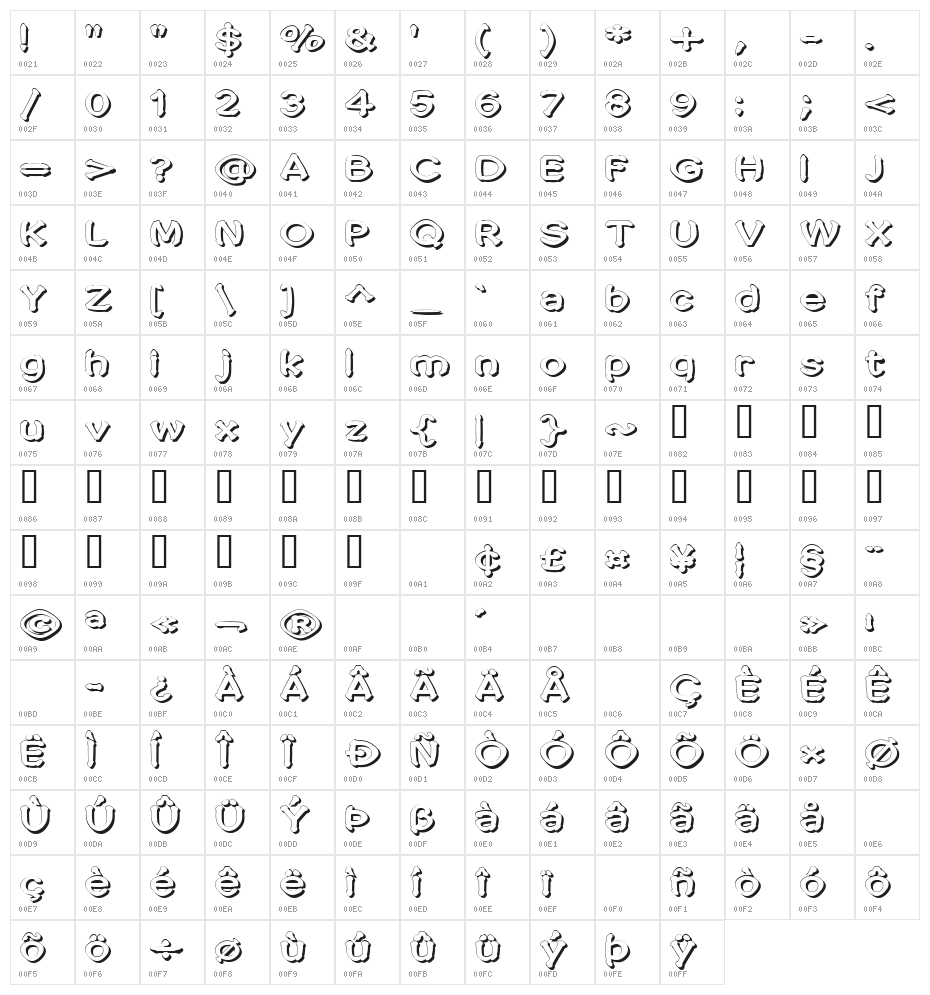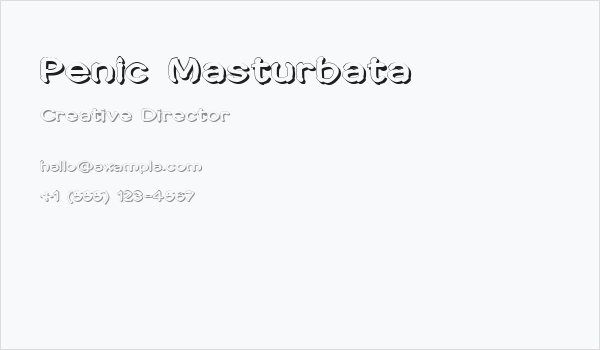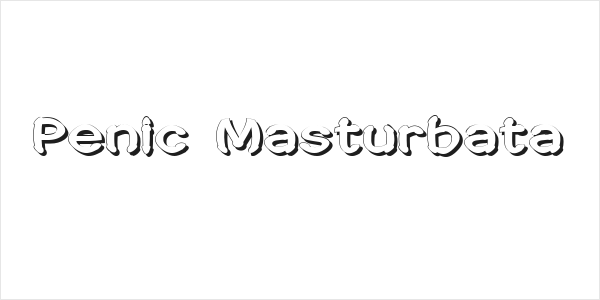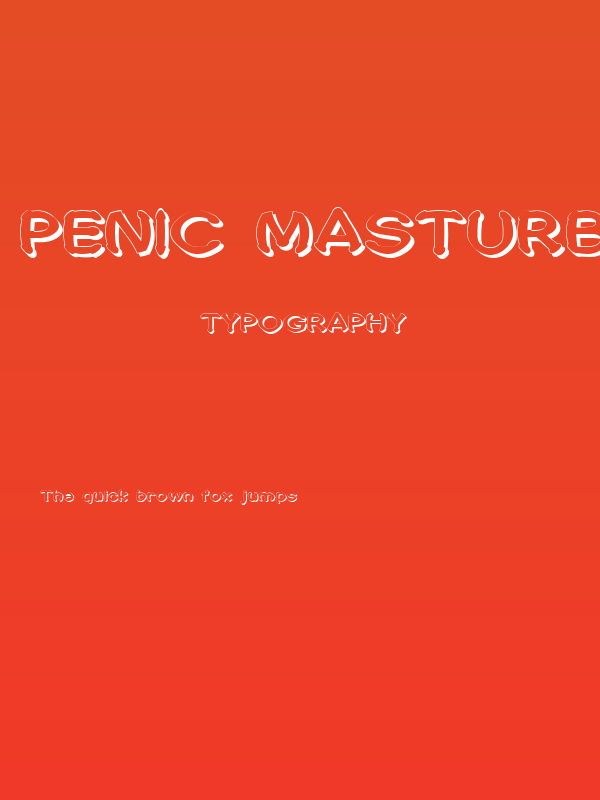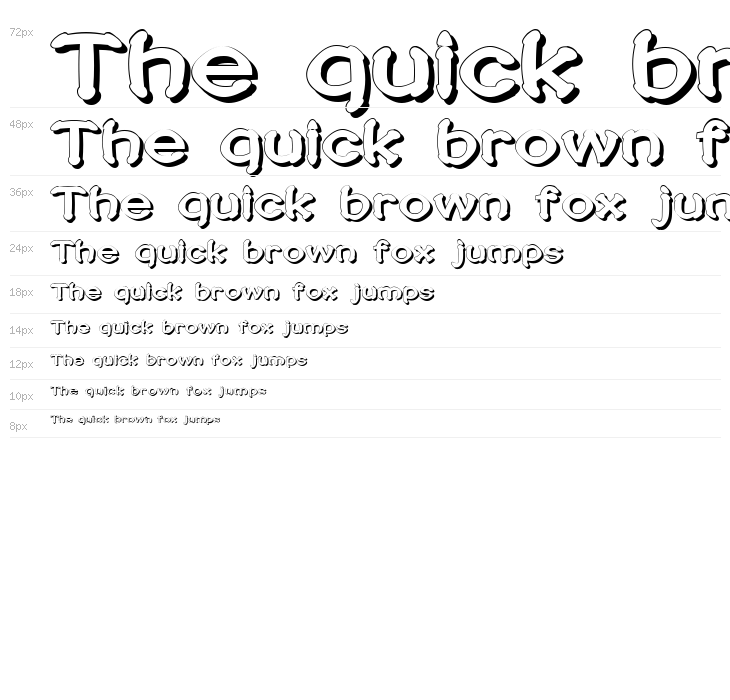
Penic Masturbata Font
Penic Masturbata Description
This font features a bold, playful style with a three-dimensional effect created by a shadow that gives depth to each character. The letters are rounded and have a cartoonish appearance, making them stand out with a fun and engaging look. The uppercase and lowercase letters maintain a consistent style, while the numerals and special characters are designed to match the overall theme. The font's unique design makes it suitable for creative and informal applications, where a touch of whimsy is desired.
| Overall Style | Playful, Fun, Cartoonish |
| Proposed Projects | Ideal for children's books, comic strips, playful branding, posters, and party invitations. |